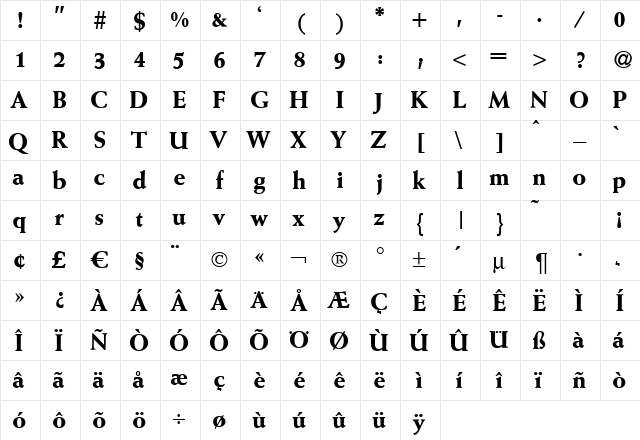
W690-Roman Bold
Design Context for W690-Roman Typeface
W690-Roman takes a measured approach to typography — its balanced proportions and neutral character make it a reliable workhorse for both digital and print work. The heavy weight commands attention and anchors typographic hierarchies.